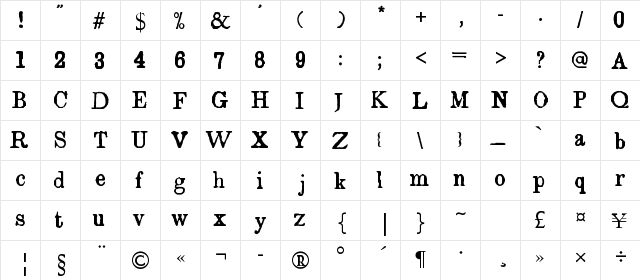
Island Roman Regular
Design Context for Island Roman Typeface
Island Roman is a composed and adaptable typeface that performs quietly and consistently across a wide range of design contexts.